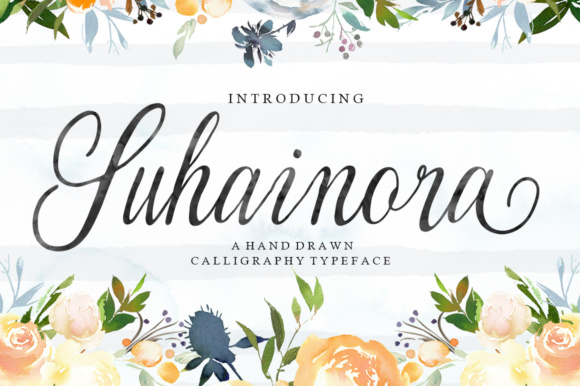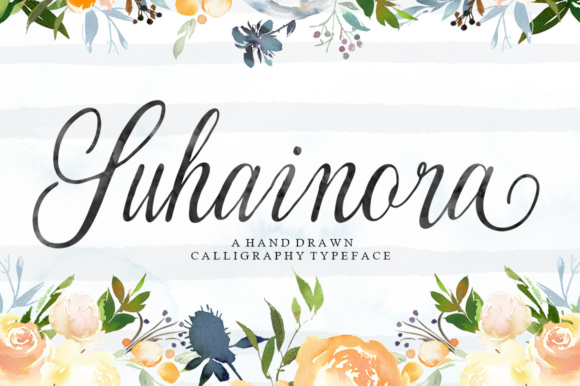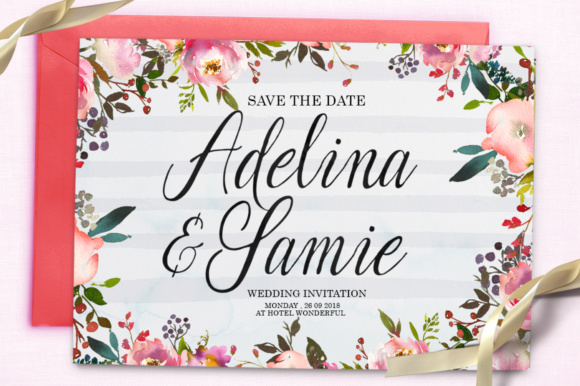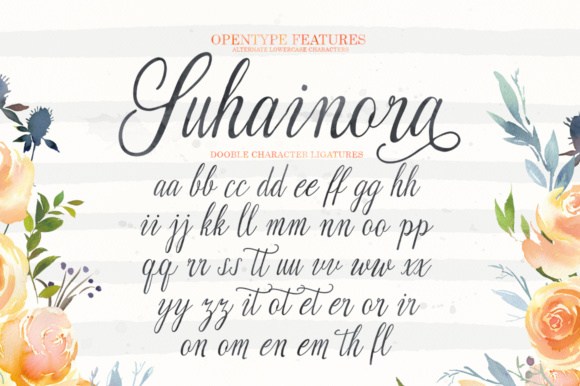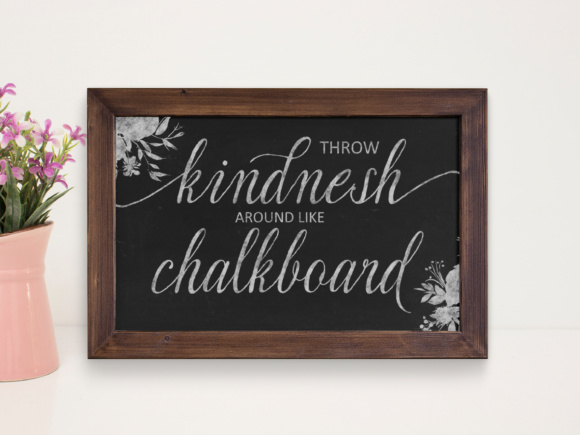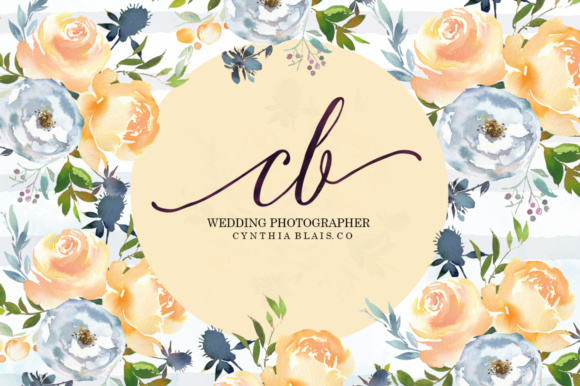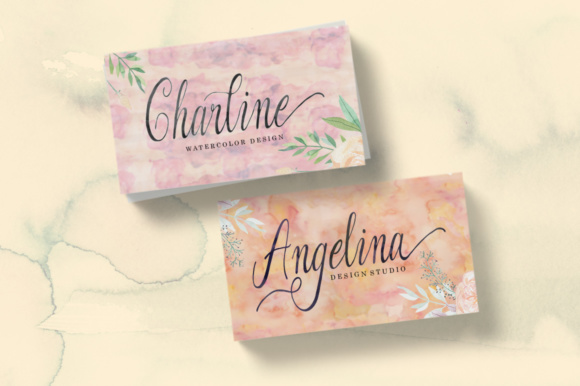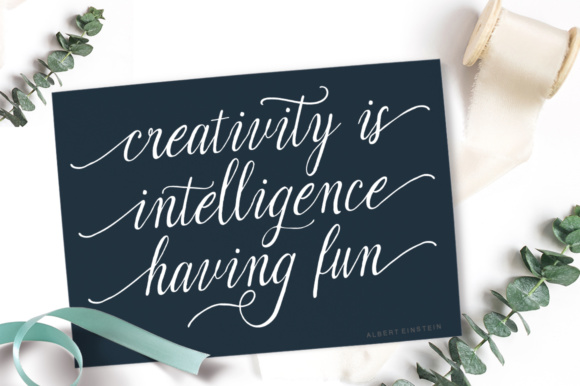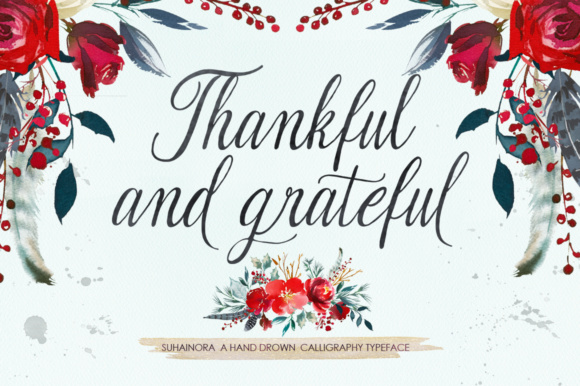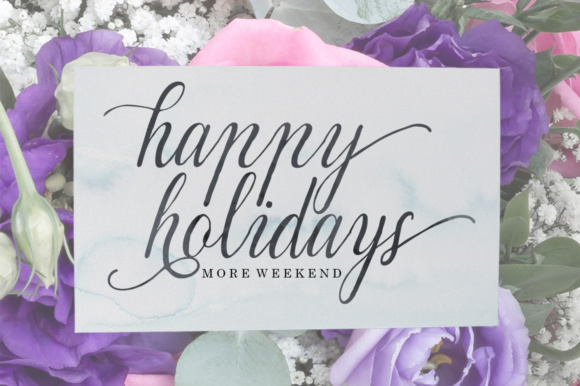
Suhainora Font
About Suhainora Font
Suhainora is a stunning, handwritten font that looks great as a display to a wide range of works. This stunning calligraphy font is a great way to give your creative works a warm and friendly appeal.